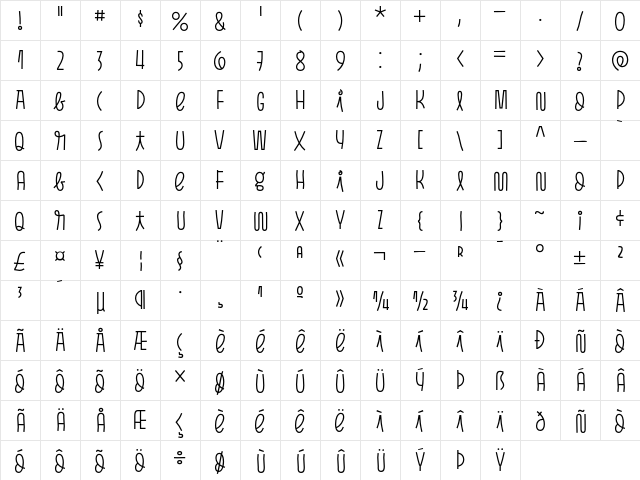
Pasto Sharp Light
| Foundry | Julia Martinez Diana, Antipixel |
| Designer | Julia Martinez Diana, Antipixel |
Design Context for Pasto Typeface
Pasto is a composed and adaptable typeface that performs quietly and consistently across a wide range of design contexts. The delicate stroke weight brings airiness and refinement to layouts.